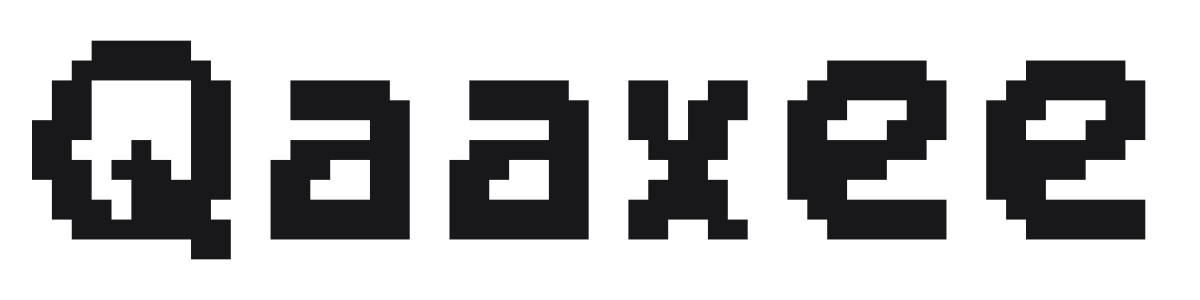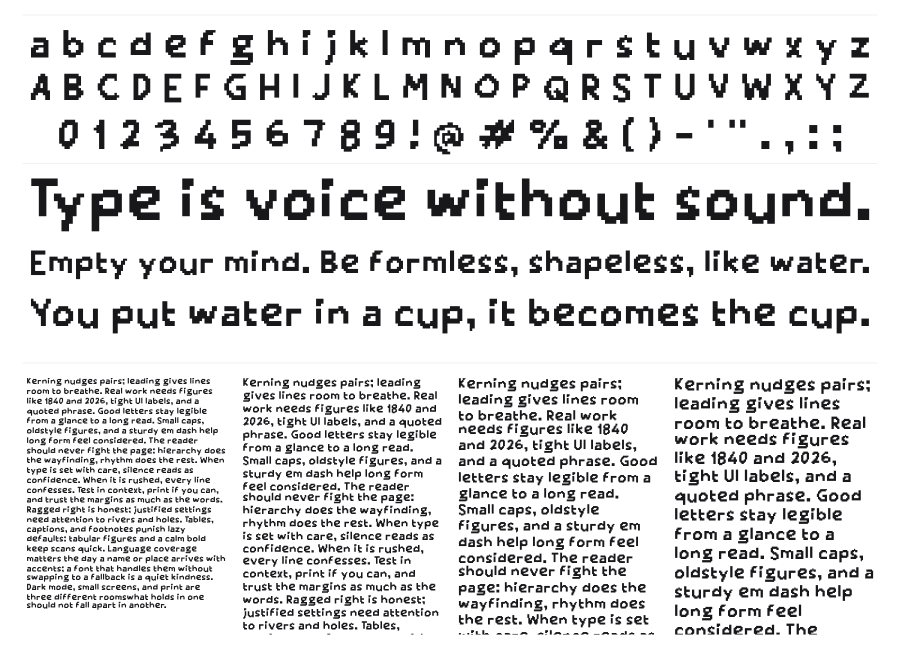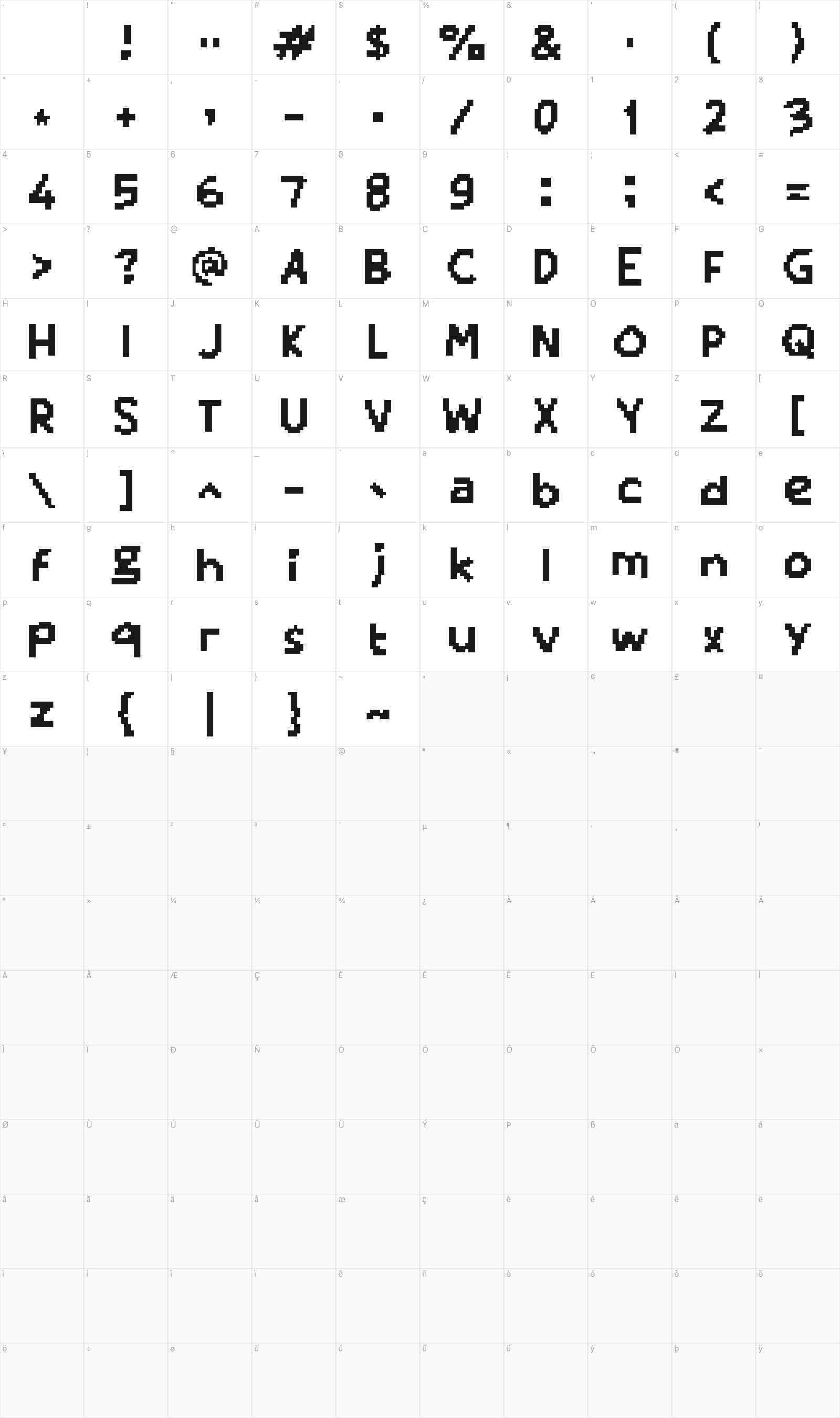
Qaaxee
Qaaxee is a bold bitmap font built on a coarse pixel grid with chunky, staircased characters that feel straight out of an early arcade or home computer screen. The low-resolution construction is deliberate and consistent, giving every character a confident retro-digital personality. It works best at large sizes where the pixelation reads as a style choice rather than a limitation.